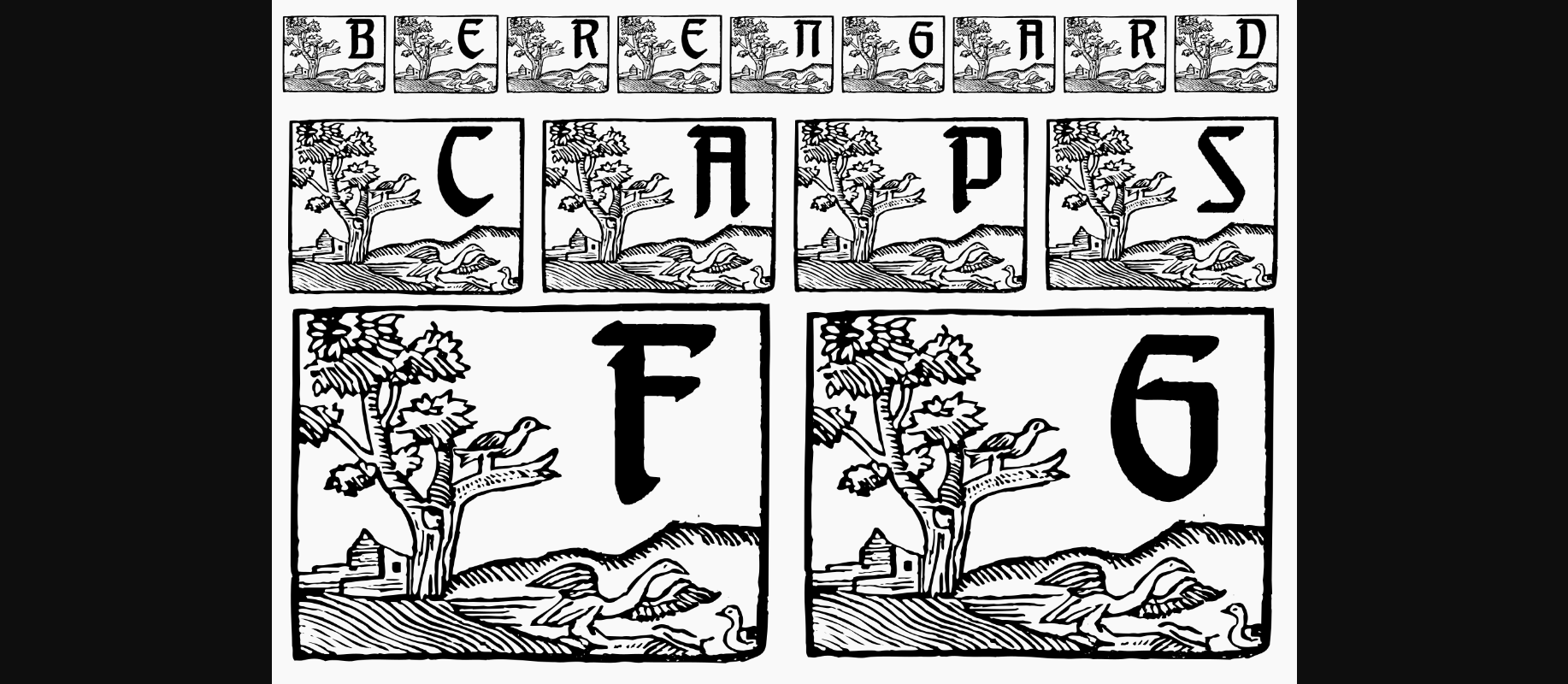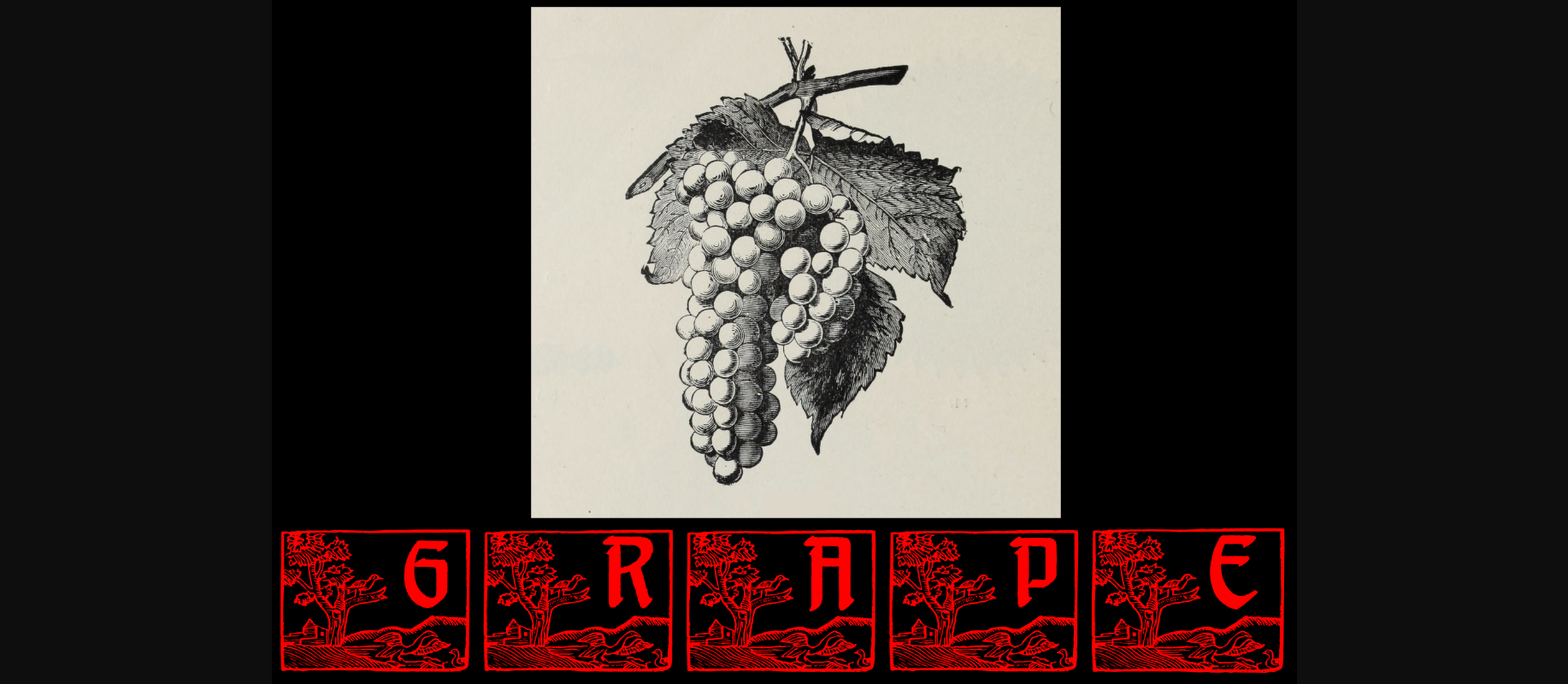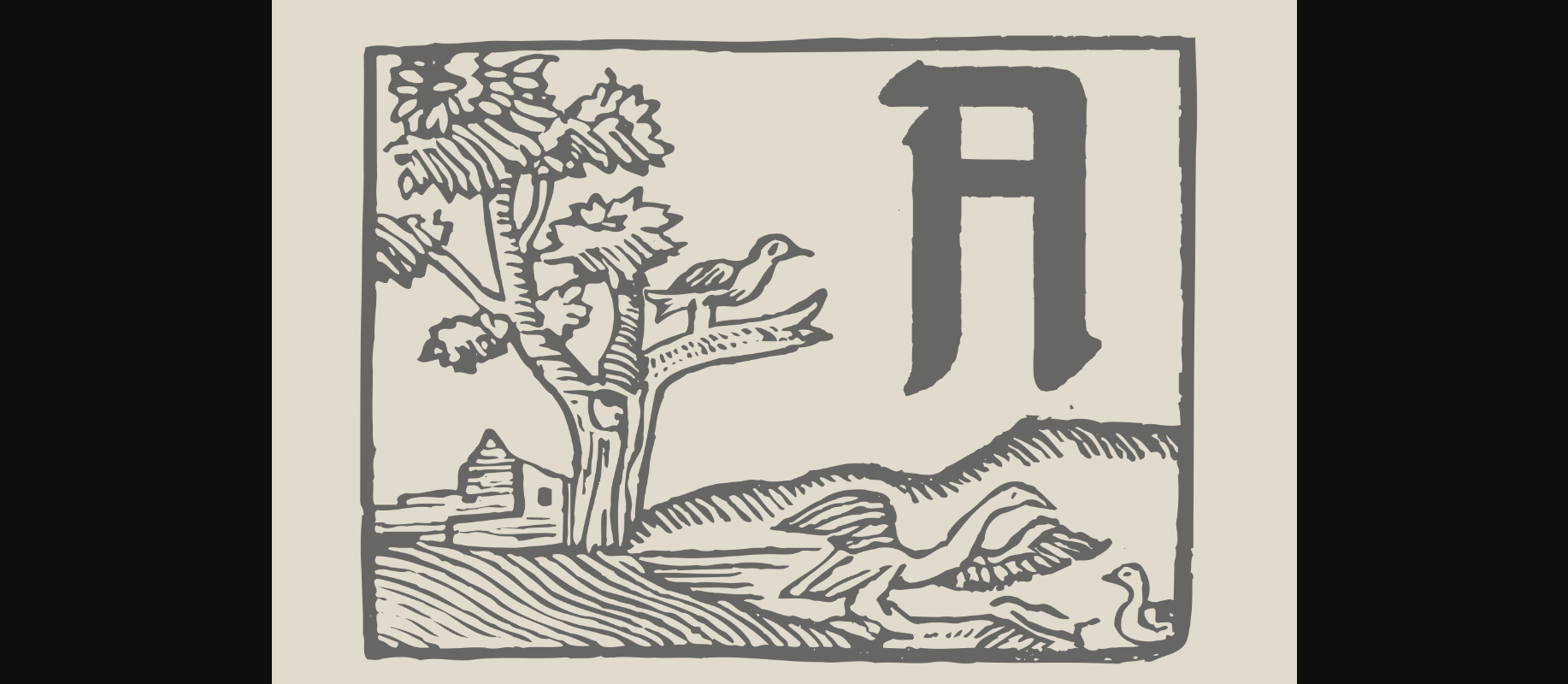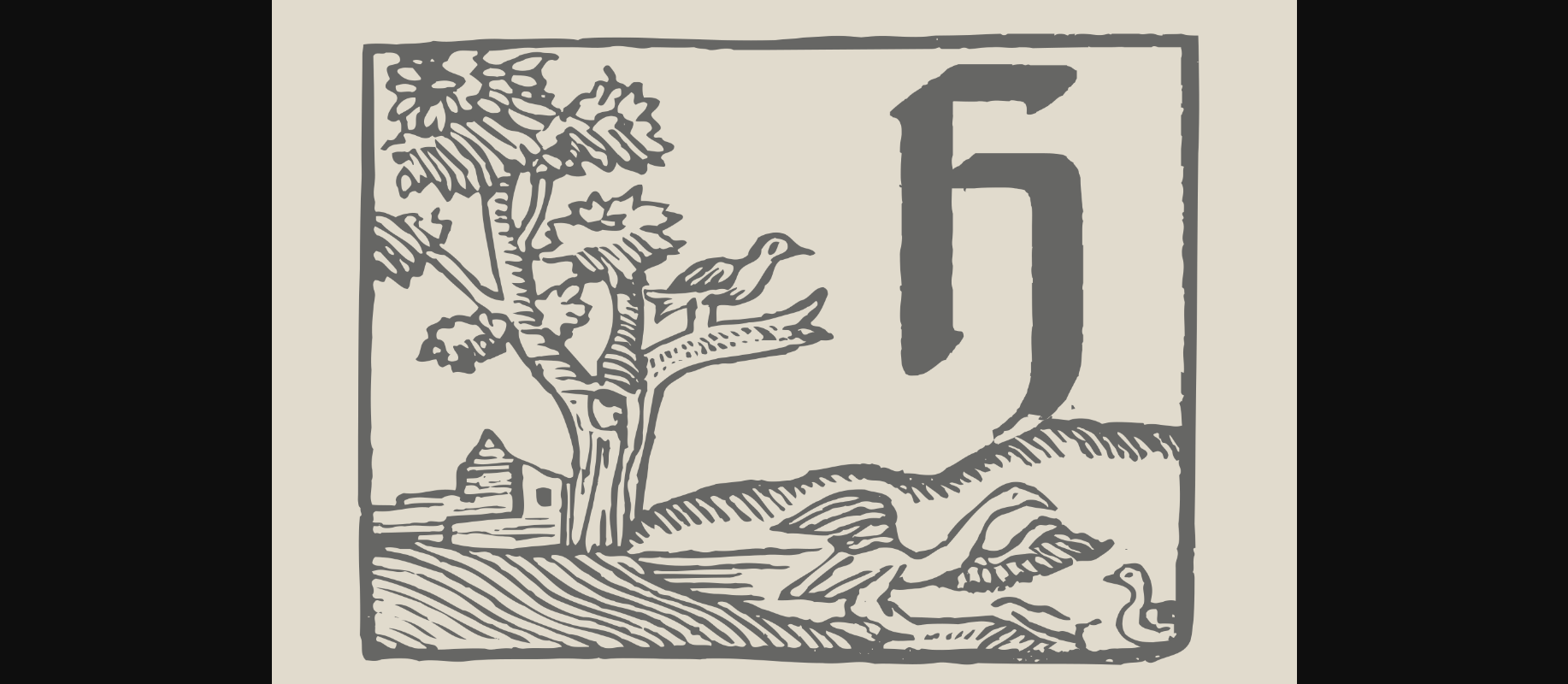
Berengard Caps Font
About Berengard Caps Font
Berengard Caps is a lovely and timeless ornamental decorative font. It is the best choice for creating eye catching logos, branding and quotes. Every letter has a unique and beautiful touch, which will make your design come alive!